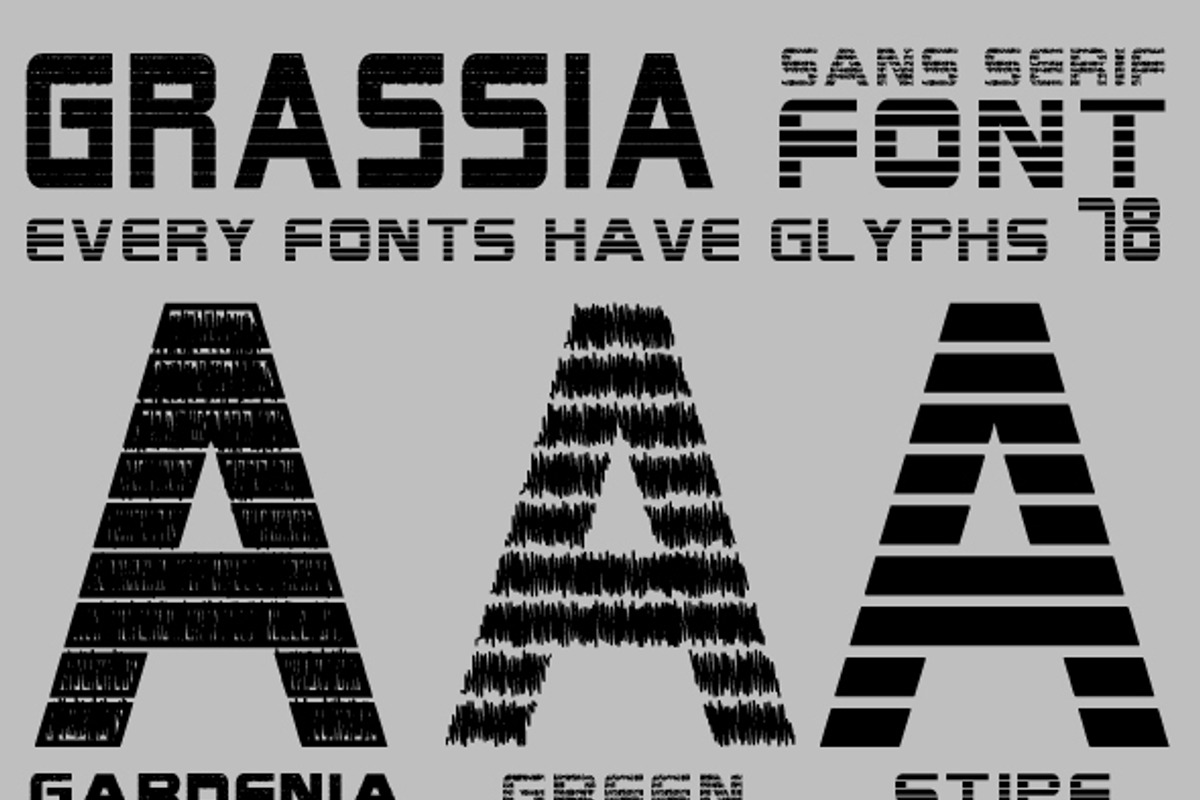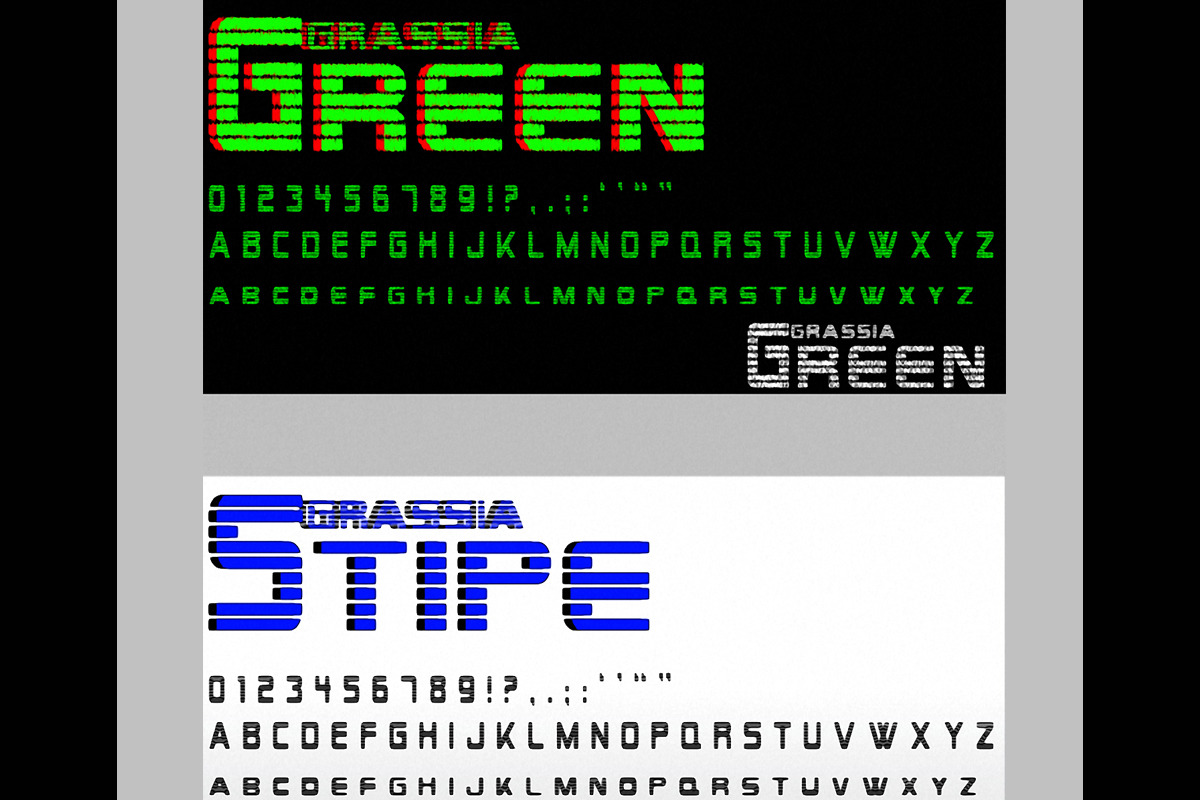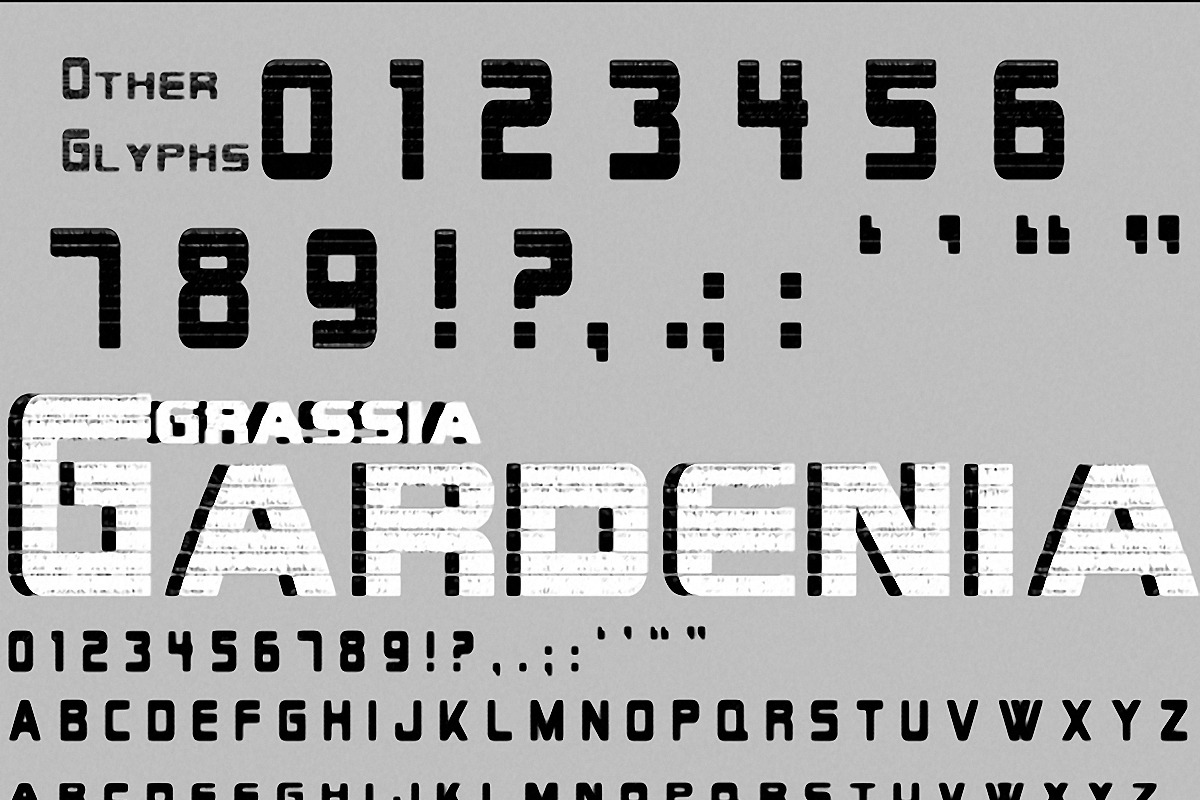
Grassia Font
Grassia Font by Emdaduljs is a font selected for branding, posters, packaging, typography.
Why Grassia Font is worth a look
Grassia Font by Emdaduljs fits naturally into Branding, posters, packaging, typography.